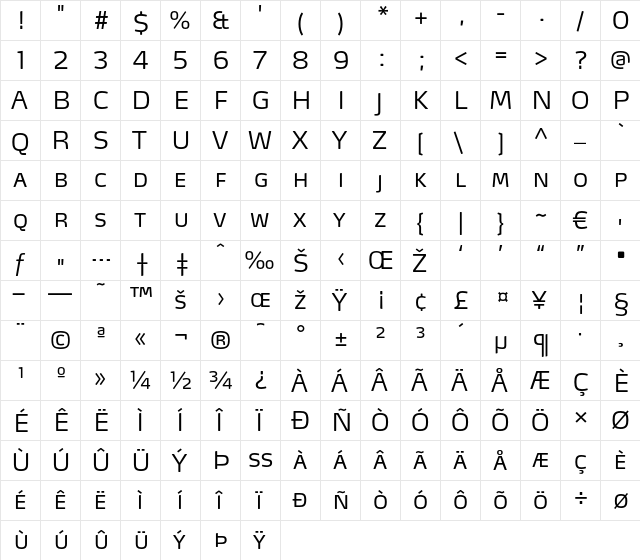
MaxLF-LightSC Regular Font Preview
MaxLF-LightSC Regular
Design Context for MaxLF-LightSC Typeface
MaxLF-LightSC offers clean, dependable letterforms without strong stylistic allegiance, making it a practical choice for designers who need flexibility. Its slender proportions lend an understated elegance to any composition.